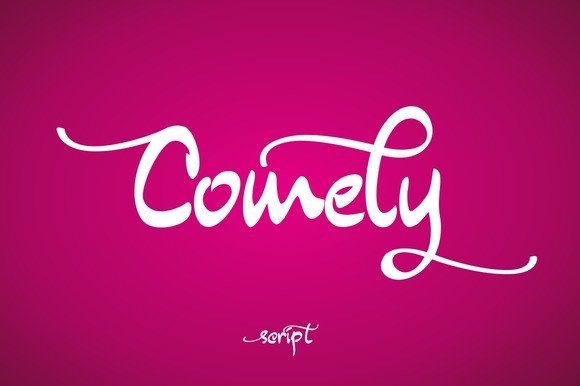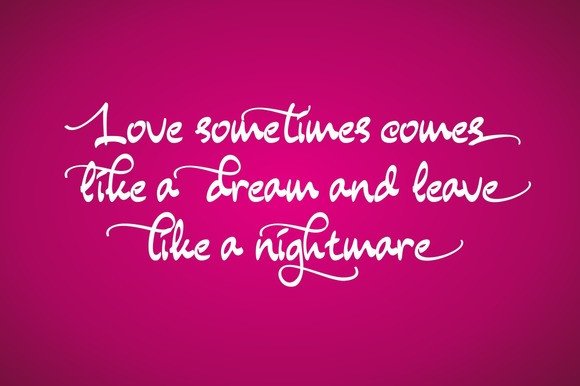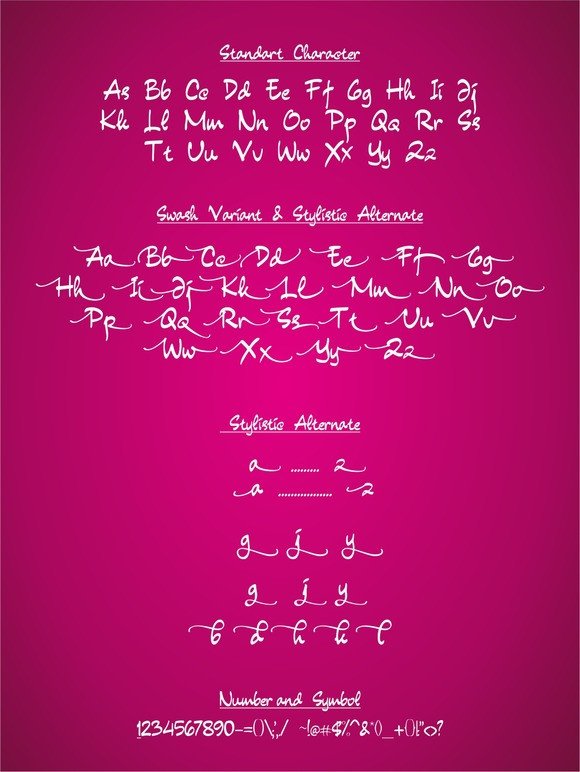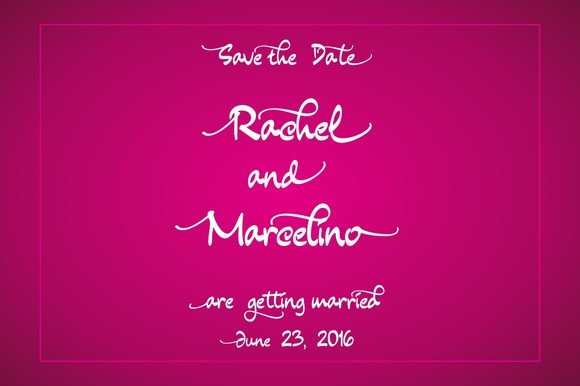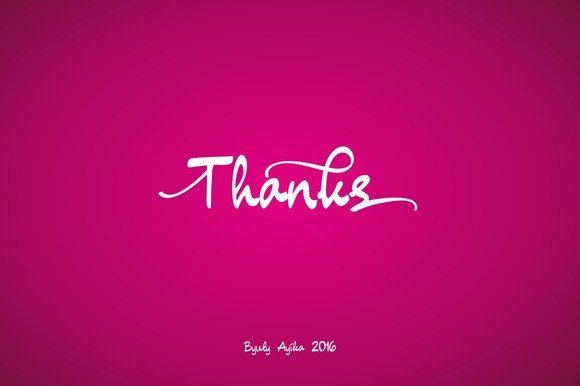
Comely Font
Comely is a thick beautiful handwritten font with smooth lines.
Comely is create for decorating birth cards or invites, creating wall art or beautiful signs. Because of the thick letters it’s a very readable font and is great for when you need text to stand out.